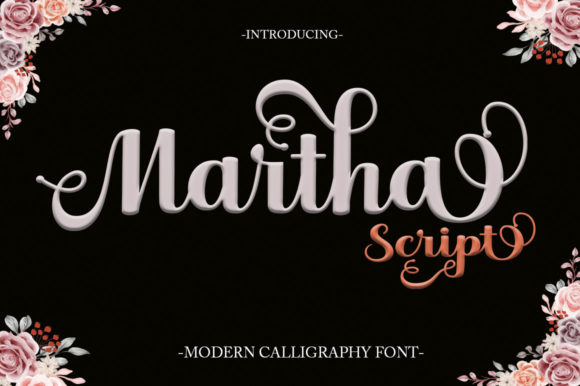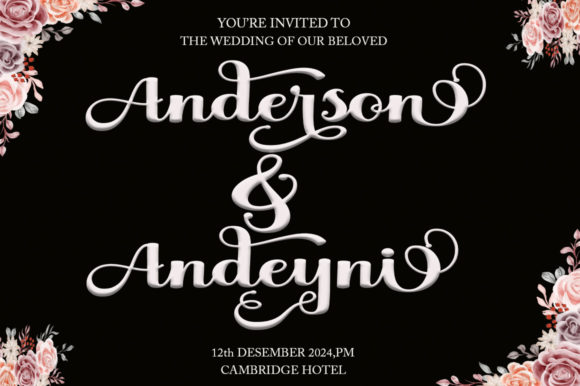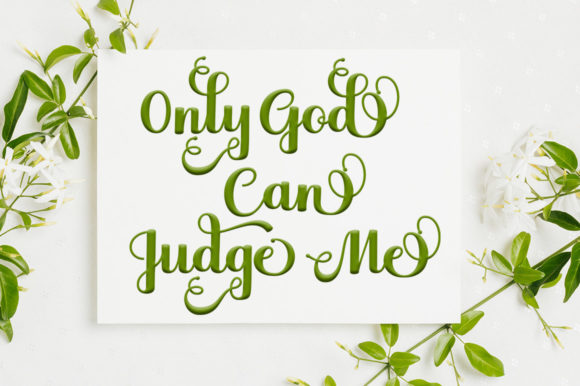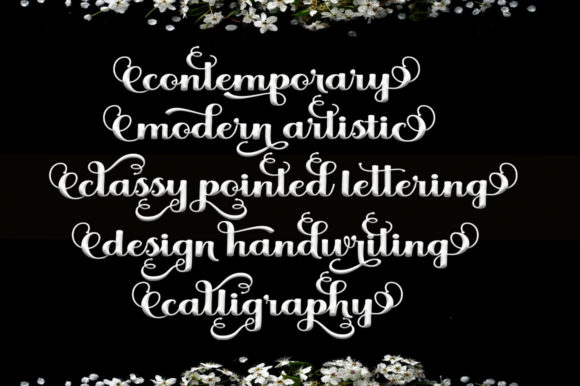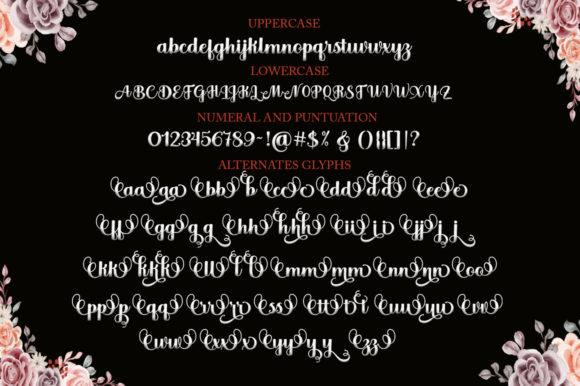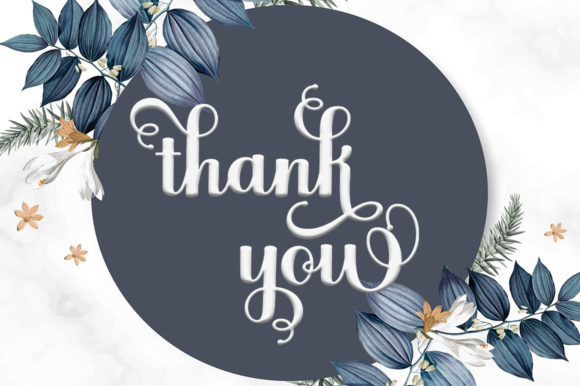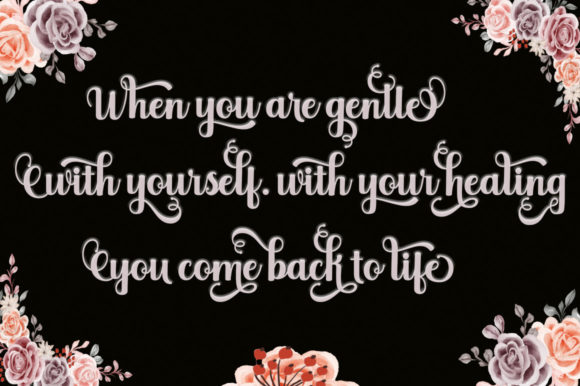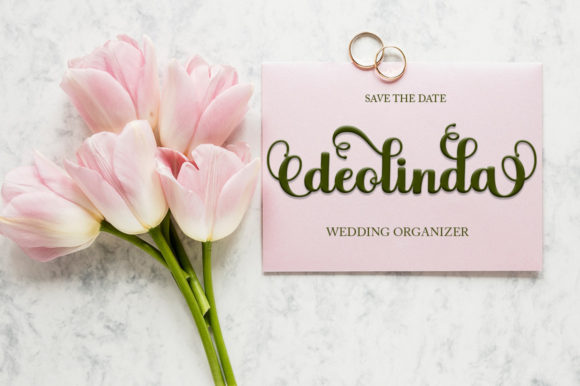
Martha Script Font
About Martha Script Font
Martha Script feels equally charming and elegant. It looks stunning on wedding invitations, thank you cards, quotes, greeting cards, logos, business cards, and any other design that needs a handwritten touch.